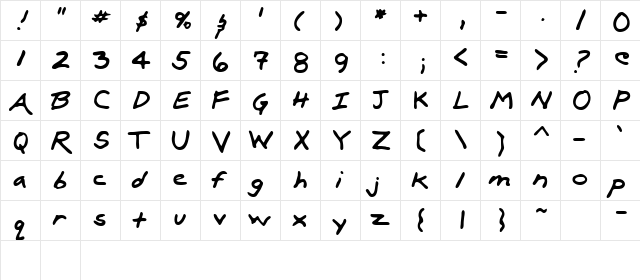
Lux Regular Font Preview
Lux Regular
Design Context for Lux Typeface
Lux is a composed and adaptable typeface that performs quietly and consistently across a wide range of design contexts.